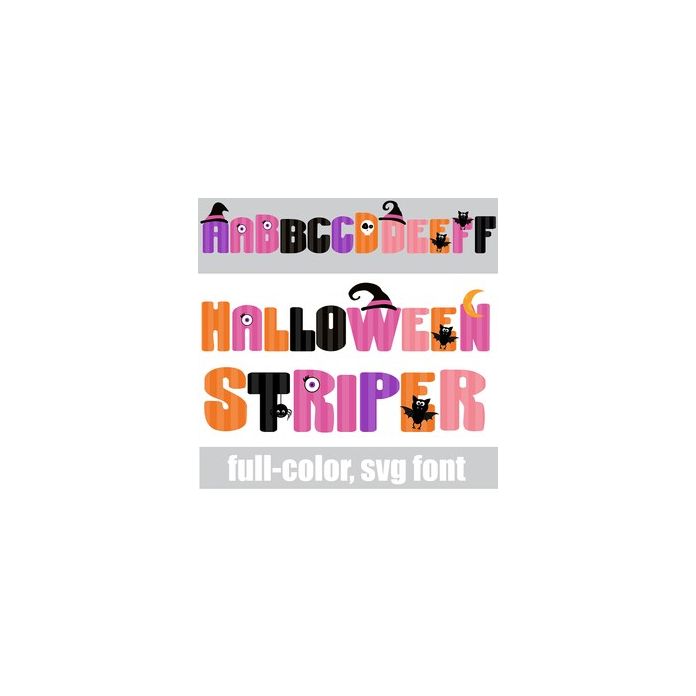
This full-color font features a Halloween color palette on striped lettering with whimsical Halloween elements. There is an alt case w/ additional colors you can access through your system or Silhouette's glyph map.